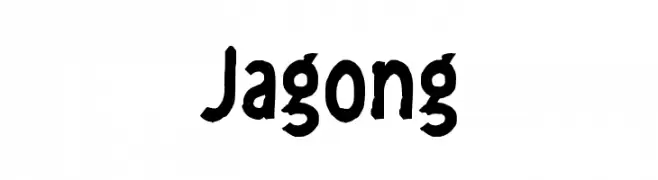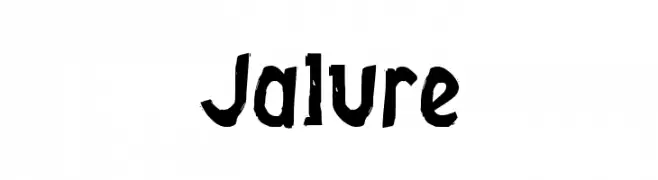
A distorted, abstract font with fragmented characters, ideal for artistic projects.
A high-contrast, modern-vintage font with bold uppercase and refined lowercase letters.
A modern-vintage font with high contrast and decorative elements.
A bold, playful font with exaggerated serifs and dynamic curves.
A bold, playful font with a hand-drawn, dynamic style.
A bold, distressed font with a rugged, handcrafted appearance.
A bold, modern font with sharp angles and a dynamic, urban style.
A bold, dynamic font with sharp, angular edges and a distressed, hand-drawn appearance.
A bold, hand-drawn font with a rugged, graffiti-inspired aesthetic.
A dynamic, jagged font with a torn, edgy appearance.
A bold, distressed font with a grunge-like, vintage style.
A bold, textured font with a hand-drawn, dynamic aesthetic.
A modern, slightly condensed font with dynamic slanted uppercase and rounded lowercase letters.
A bold, hand-drawn font with a rough, expressive style.
A bold, expressive handwritten font with jagged, textured strokes.
A playful, hand-drawn font with quirky, decorative letterforms.
A bold, geometric font with a futuristic and tribal aesthetic.
A bold, Gothic-inspired font with sharp, angular edges and a medieval flair.
A bold, classic serif font with strong strokes and subtle curves.
A modern, geometric font with sharp angles and a futuristic style.
A bold, expressive font with an artistic, hand-painted style and ink splatter effects.
A playful, bold font with a bubbly, hand-drawn style.
A playful, bold font with a bubbly, rounded style and cartoonish charm.
A bold, distressed font with a vintage, hand-crafted look.
A modern sans-serif font with a clean, professional look and slightly condensed structure.
Abstract, decorative font with intricate, whimsical glyphs.
A diverse set of ornamental symbols with bold outlines and intricate details.
A bold, italic typewriter-style font with a handwritten, vintage feel.
A bold, italic font with dynamic and flowing letterforms, perfect for expressive designs.